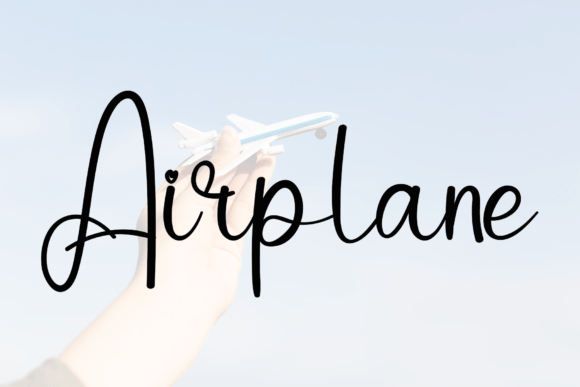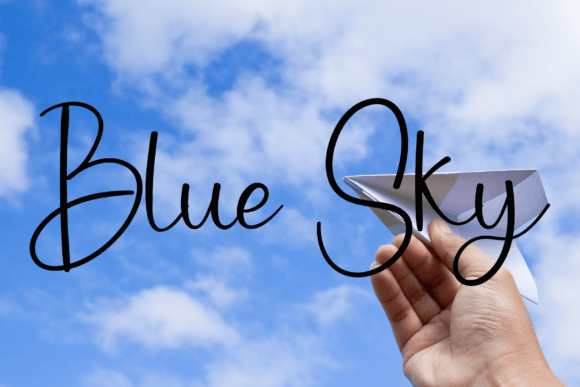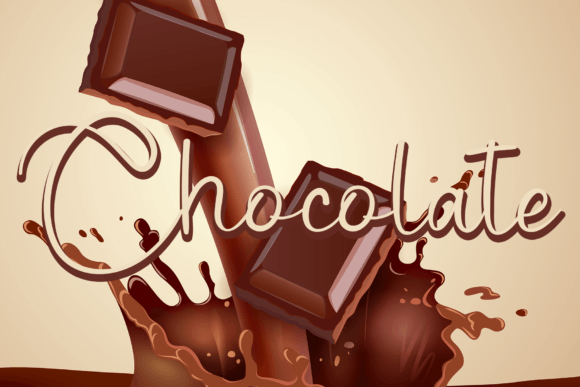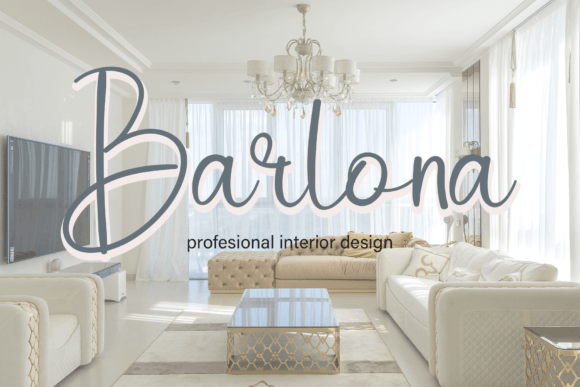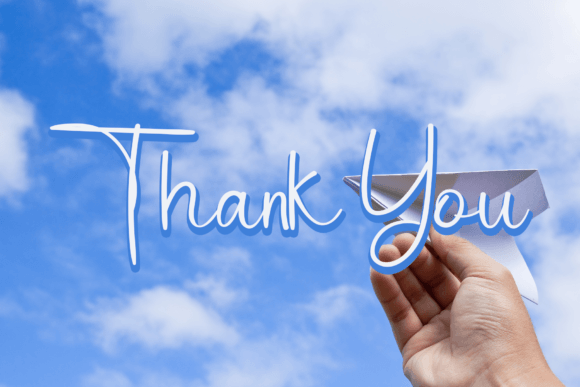
Dream Big Font: Elevate Your Designs with Elegance and Timelessness
Are you on the hunt for a font that exudes elegance, sophistication, and a touch of whimsy? Look no further than the Dream Big Font, a stunning handwritten font that is sure to capture your heart. With its incredibly distinct and timeless style, this beautiful font is perfect for designers and crafters looking to add a personal touch to their projects.
The Charm of Dream Big Font
Dream Big Font is a neat and beautiful handwritten font that boasts an elegant touch, making it an ideal choice for a wide range of projects. Whether you’re working on a logo, branding materials, social media graphics, or even a website, this font is sure to impress. Its unique and distinctive style sets it apart from other fonts, giving your designs a professional and polished look that’s sure to stand out.
Key Features of Dream Big Font
- Elegant and Sophisticated: Dream Big Font features an elegant and sophisticated design that’s perfect for projects that require a touch of luxury and refinement.
- Handwritten Style: The font’s handwritten style gives it a personal and approachable feel, making it ideal for designers and crafters who want to add a human touch to their work.
- Distinct and Timeless: The font’s incredibly distinct and timeless style ensures that your designs will remain relevant and stylish for years to come.
- Versatile: Dream Big Font is versatile and can be used for a wide range of projects, from logos and branding materials to social media graphics and websites.
Why Choose Dream Big Font?
So, why choose Dream Big Font over other fonts? Here are just a few reasons why this font stands out:
- Unique Style: Dream Big Font has a unique and distinctive style that’s sure to set your designs apart from the crowd.
- High-Quality: The font is of high quality, ensuring that your designs look professional and polished.
Tips and Tricks for Using Dream Big Font
Here are some tips and tricks for using Dream Big Font:
- Experiment with Sizes: Experiment with different font sizes to find the one that works best for your design.
- Play with Colors: Play with different colors to find the one that complements your design.
- Use it for Headings: Use Dream Big Font for headings and titles to add a touch of elegance and sophistication.
- Pair it with Other Fonts: Pair Dream Big Font with other fonts to create a unique and visually appealing design.